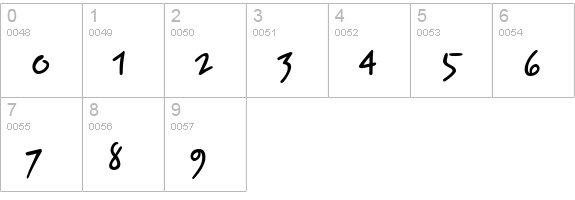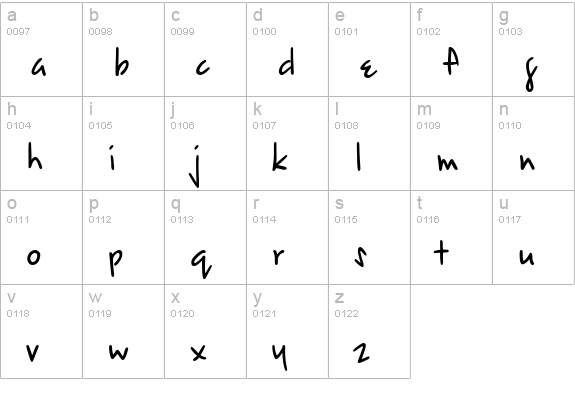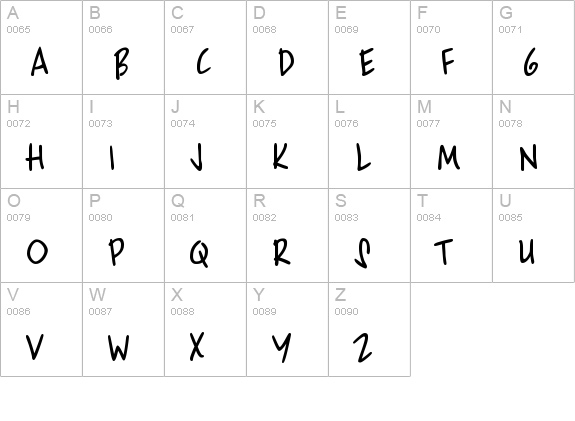
EpsilonC Font Details
EpsilonC font is a modern and stylish typeface that combines elegance with a touch of sophistication. Its clean lines and balanced letterforms make it perfect for a wide range of design projects, from branding to editorial layouts. This versatile font offers a sleek and contemporary look that will elevate any design it is used in. Whether you are creating a logo, a website, or a marketing campaign, EpsilonC font will help you make a lasting impression on your audience. The best part is, EpsilonC font is available for free download at FontsMarket.com. So you can easily add this beautiful typeface to your font collection without breaking the bank. Don't miss out on the opportunity to enhance your designs with this exceptional font - download EpsilonC today!